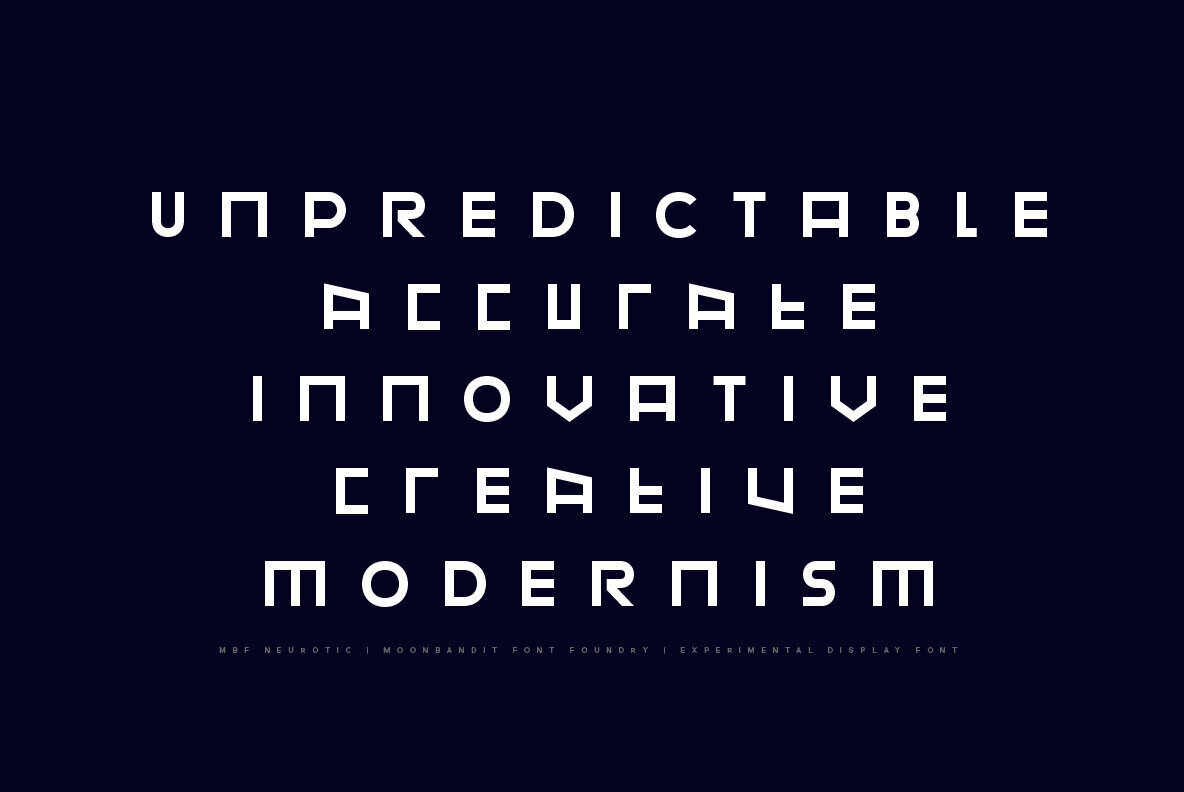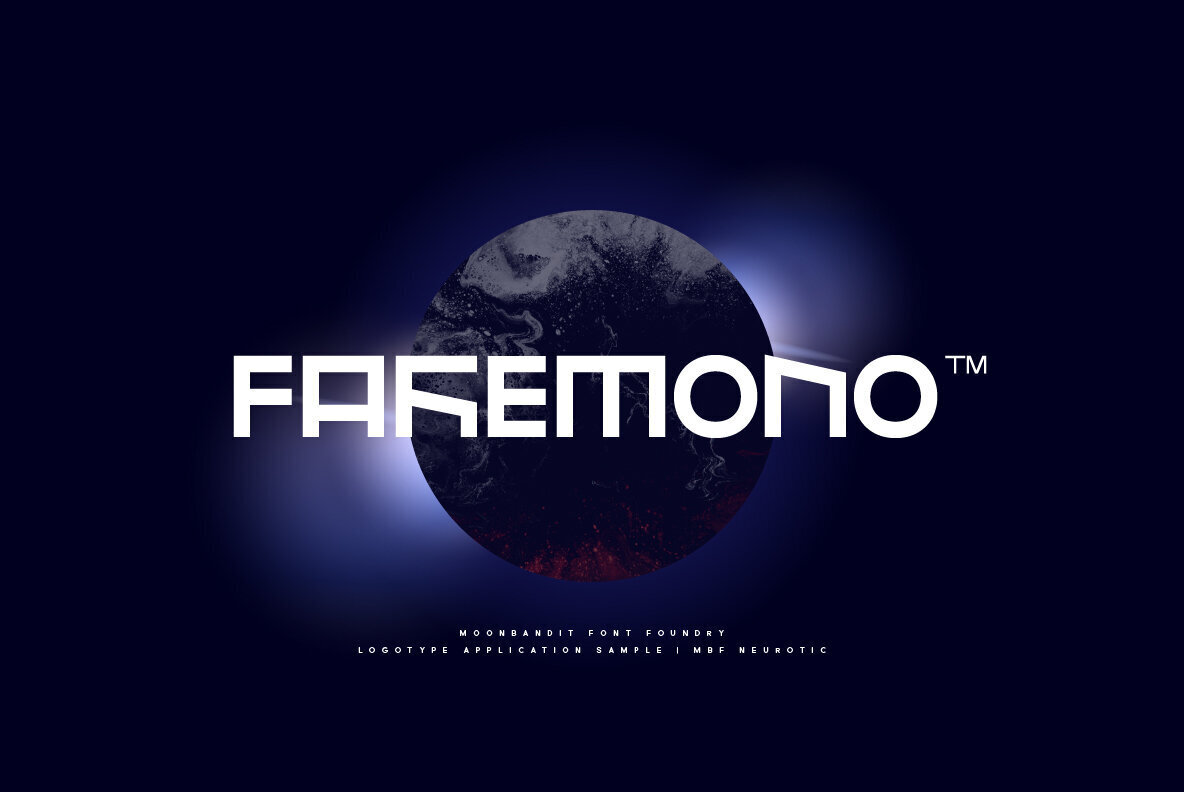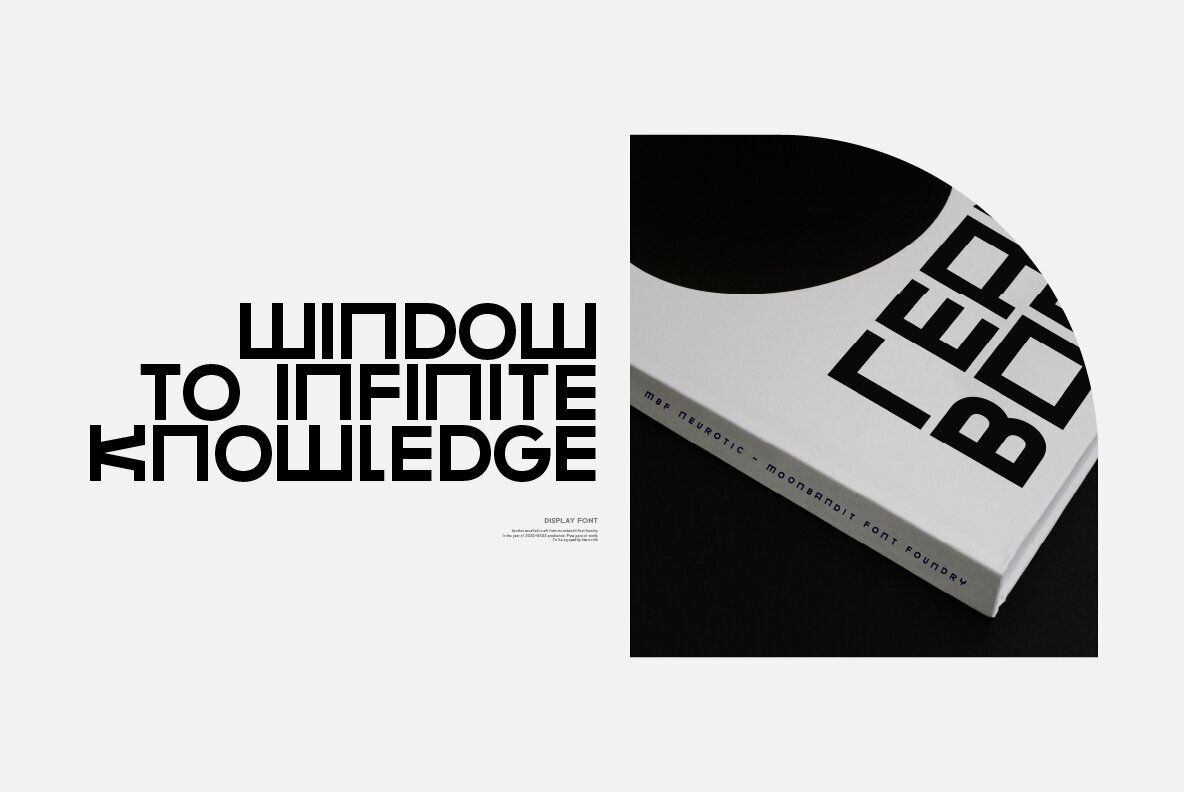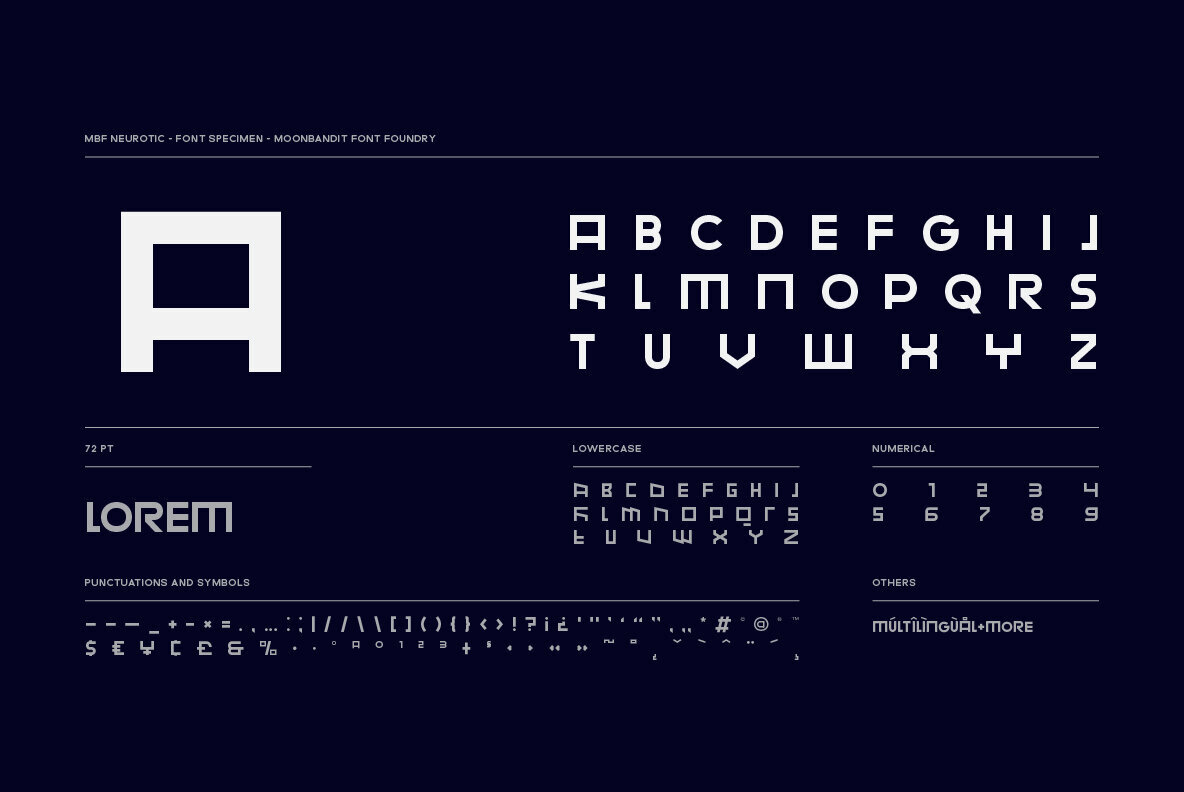
MBF Neurotic Font
MBF Neurotic
Neurotic is a geometric modern minimalist square sans serif display font. An experimental combination between angled and straight lines makes this a unique typeface design. Easily access the styles with uppercase and lowercase. Perfect usage includes logo, poster, display, headline, t-shirt design and many more.